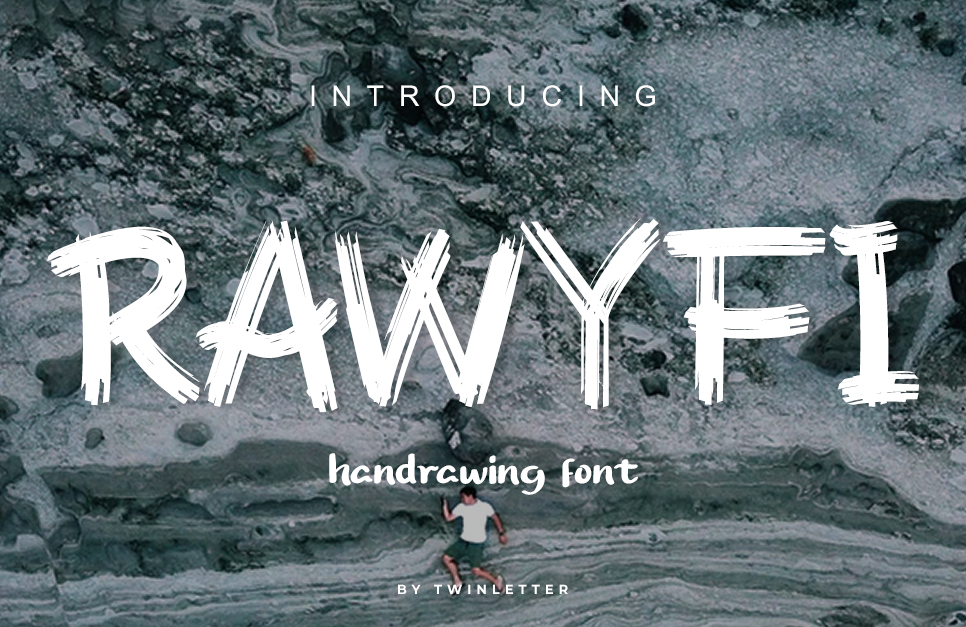
Rawyfi Font
Rawyfi Font is a rough brush font with a unique, cool and easy to read handwritten touch. Hand style makes it perfect for use in all your design projects, be it logos, signatures, labels, packaging designs, quotes, heading titles, movie titles or anything else. Using this font will definitely make your text stand out and design the perfect appearance
Rawyfi comes with basic letters, and big and small punctuation marks. This font also supports Western European and Central European or multilangual languages.